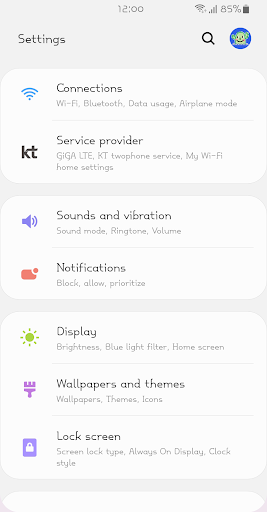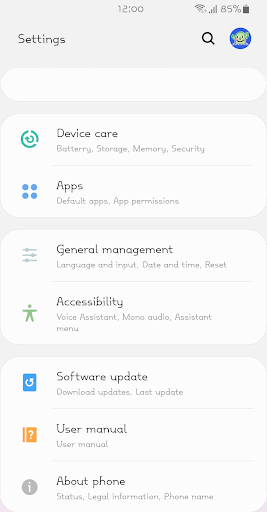
BSTCloudSerif
This typeface contains the trendyness through its unique curves and geometric shapes. Through a unique serif that resembles the shape of the porcelain, you can breathe a different sensibility, and the location and space of the porcelain are cool and you can feel as if clouds are floating in the clear sky. It is BSTCloudSerif, my own brand, which has a clear standard for a unique sense of space and good readability.
+ ;) BrandSpace-T's point Dingbet, a pretty smile! "Hello Cactus"'s refreshing smile!
+ ;> "Singing fur dog" Dingbet!
+ :!: "Idea" Dingbet!
+ ♂ (Boy) ♀ (Girl) There is!
+ Even if the colored letters are bolded, there is no change in thickness.